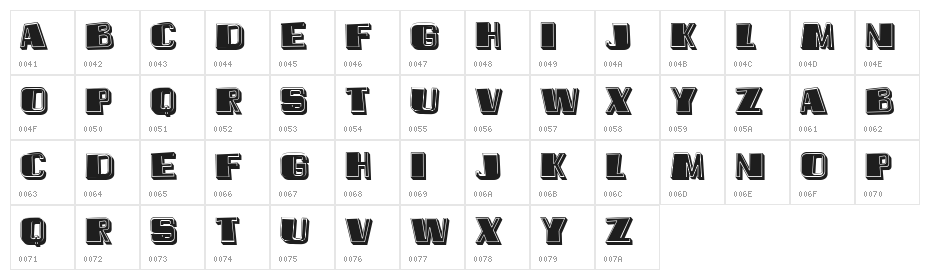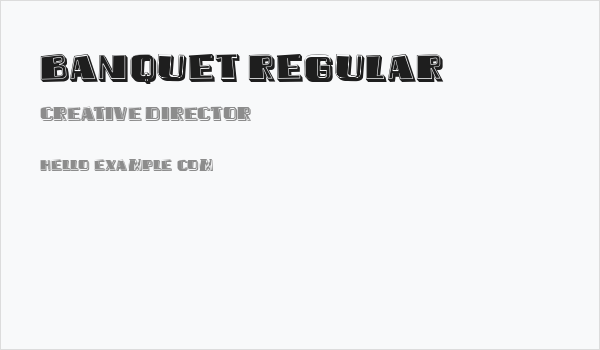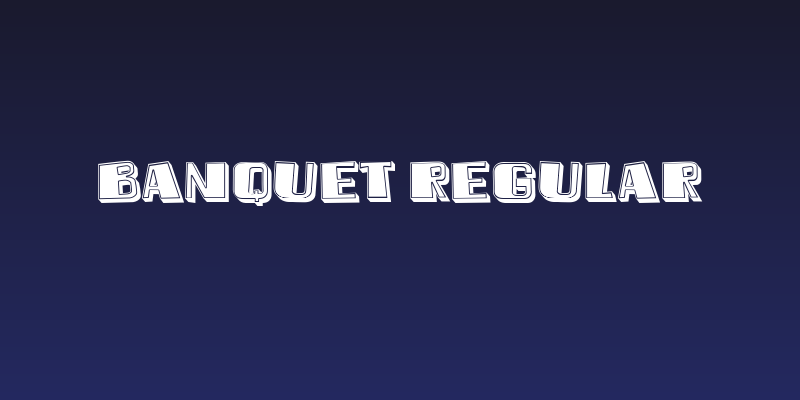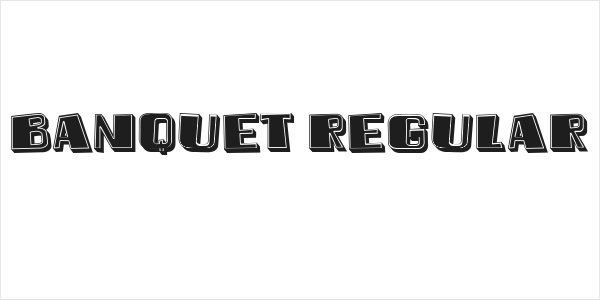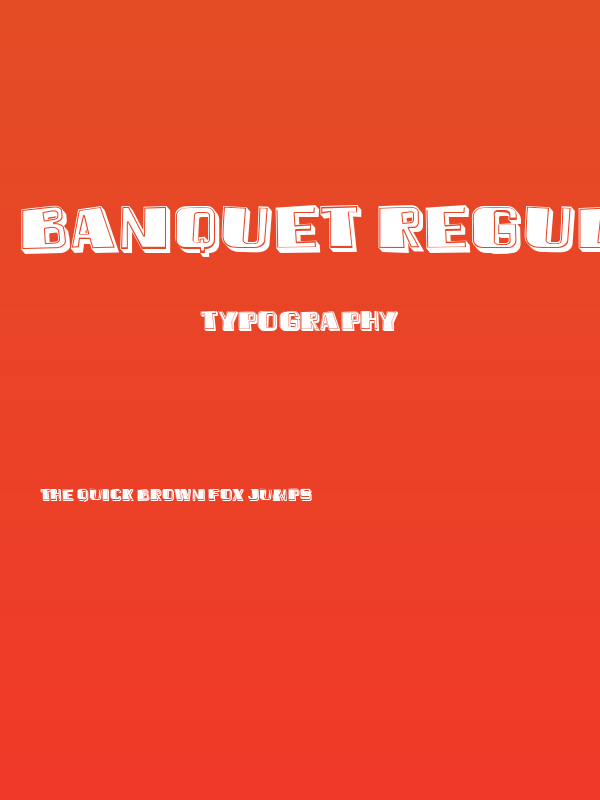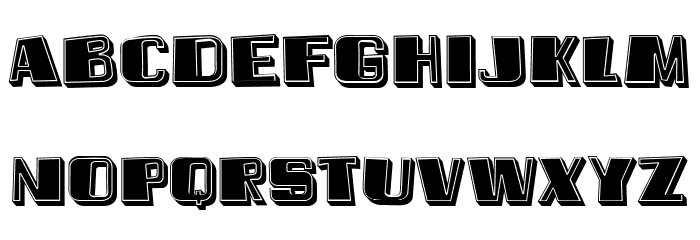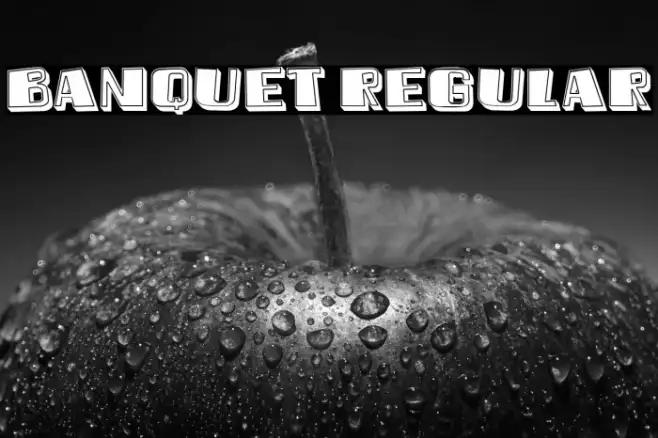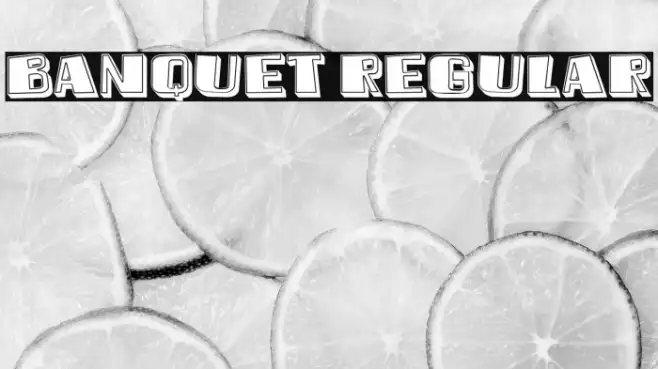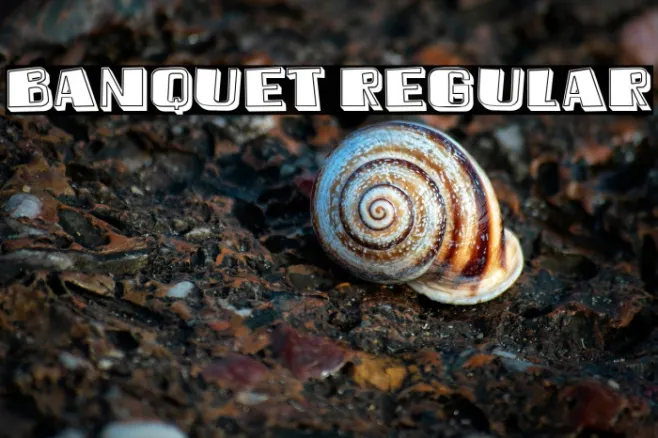
Banquet Regular Font
Banquet Regular Description
This font features a bold and dynamic style with a three-dimensional effect, achieved through a shadowed outline that gives depth to each character. The uppercase letters are robust and commanding, making them ideal for attention-grabbing headlines. The design is characterized by a strong geometric influence, with clean lines and sharp angles that create a modern and impactful look. The shadow effect adds a layer of complexity, making the font suitable for projects that require a touch of sophistication and flair. Its unique style makes it stand out, ensuring that any text set in this font will be memorable and visually striking.
| Proposed Projects | Ideal for posters, logos, branding, and any design requiring a bold statement. |